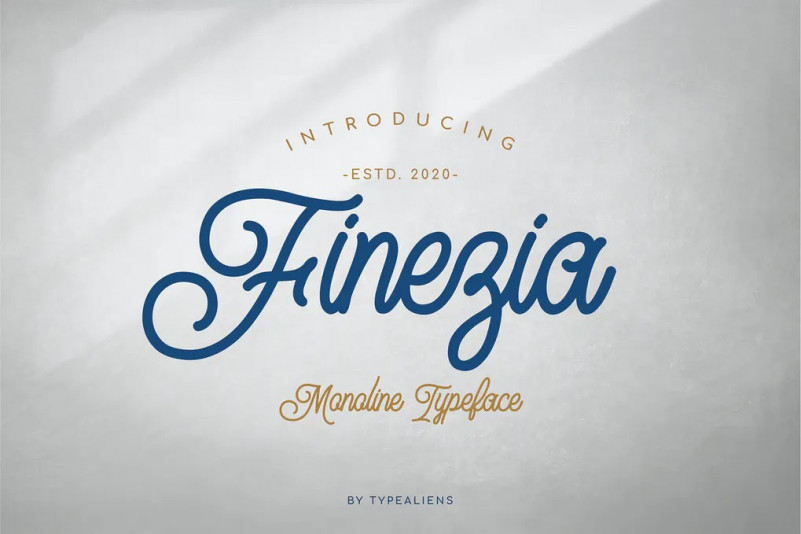
Finezia Font
FINEZIA is script-monoline typeface, it does not carry a neat style but more to the style of modern calligraphy. Finezia is suitable for modern designs such as website main page, logotype, badge logo design, quotes etc.